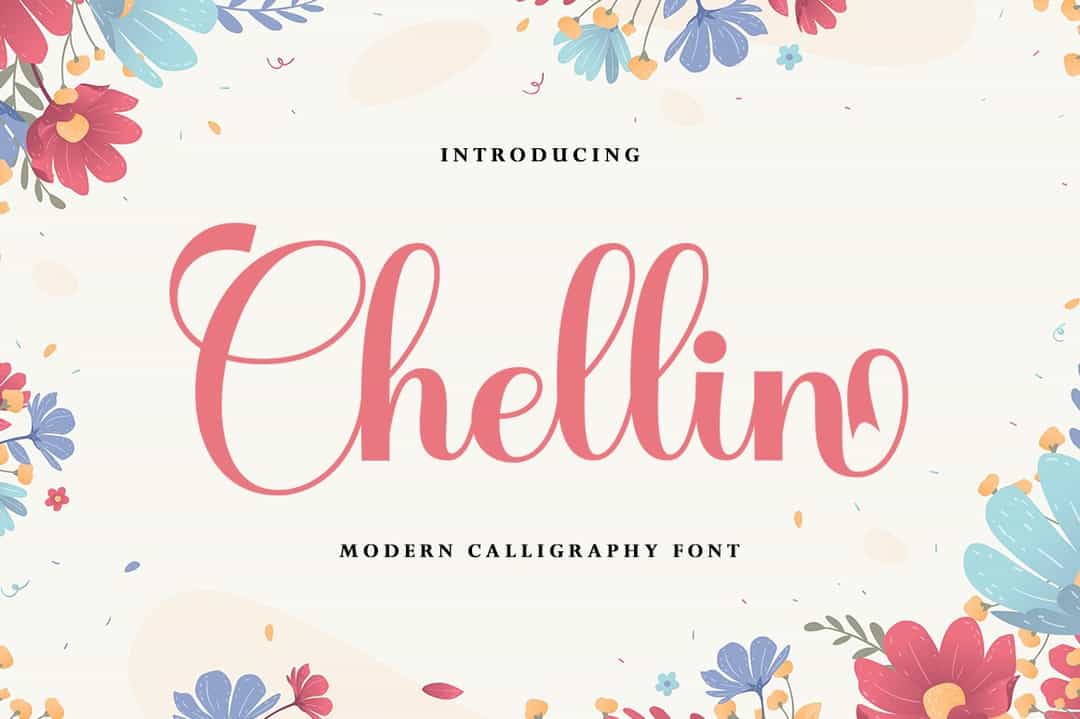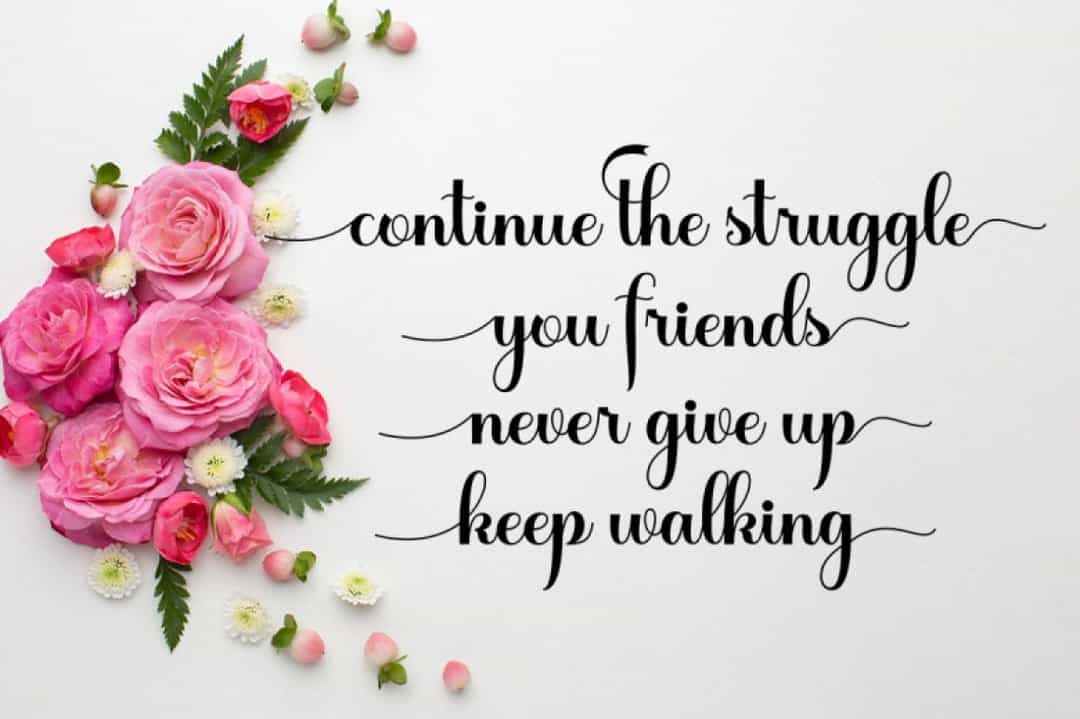
Chellin Calligraphy font can be described as a modern elegant bold and stylish script typeface, ideal for designs which require something special such as wedding invitations, thank-you cards corporate cards or greeting cards with its elegant script style. Furthermore, its PUA encoding ensures it accesses all characters easily!